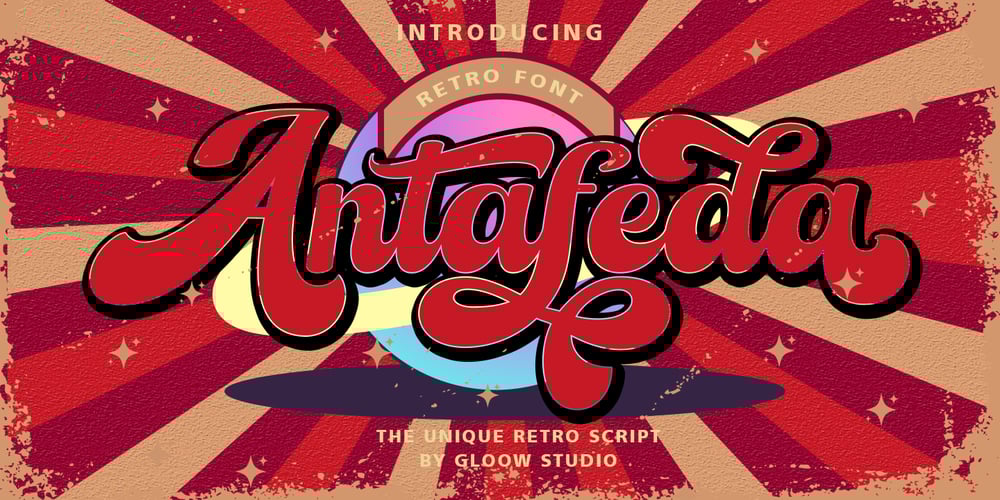
Antafeda Font Family was designed by Muhammad Iqram and published by Gloow Studio. Antafeda contains 1 styles and family package options. Antafeda is our another retro script typeface. Use this typeface and you will make a retro design with ease! Combined your design with dozens of stylistic alternates and elegant swashes which is included in this typeface, this retro typeface is really perfect for logo design, t-shirt, vintage and retro badge, vintage quotes, branding, packaging, etc.Antafeda features:A full set of upper & lowercase charactersNumbers & punctuationMultilingual language supportPUA Encoded Characters+320 GlyphUp to 80 Stylistic Alternates with Swashes and Ligatures!OpenType FeaturesTo enable the OpenType Stylistic alternates, you need a program that supports OpenType features such as Adobe Illustrator CS, Adobe InDesign & CorelDraw X6-X7, Microsoft Word 2010 or later versions. There are additional ways to access alternates/swashes, using Character Map (Windows), Nexus Font (Windows), Font Book (Mac) or a software program such as Pop Char (for Windows and Mac).Thankyou for purchasing our product, hope you like and have fun with our product. If you have any queries, questions or issues, please don’t hesitate to contact us directly. If you satisfied with our product, please give 5 stars rating.Happy Designing…